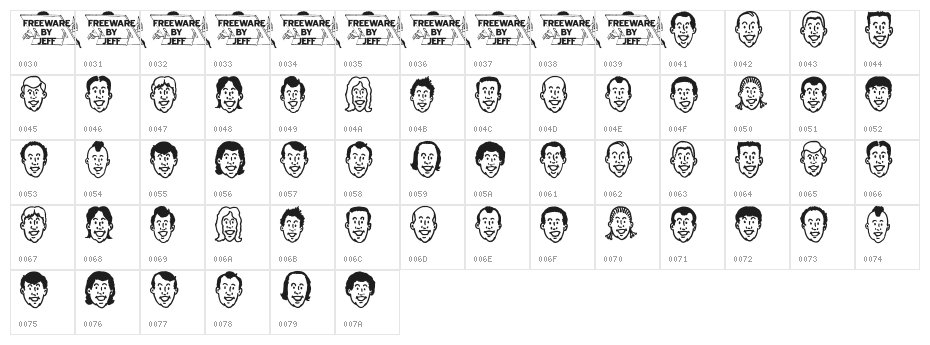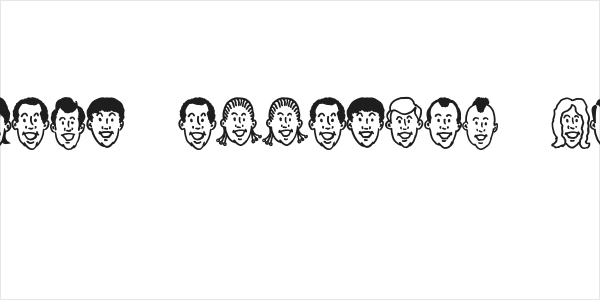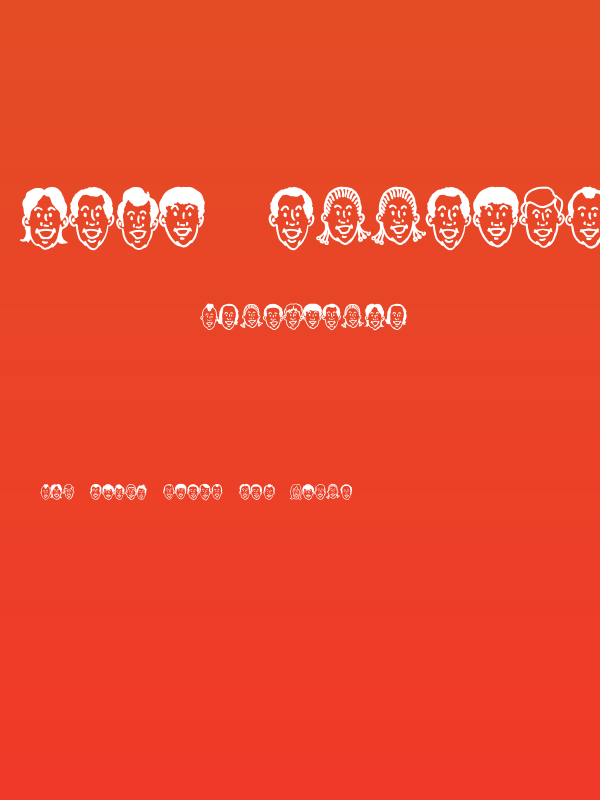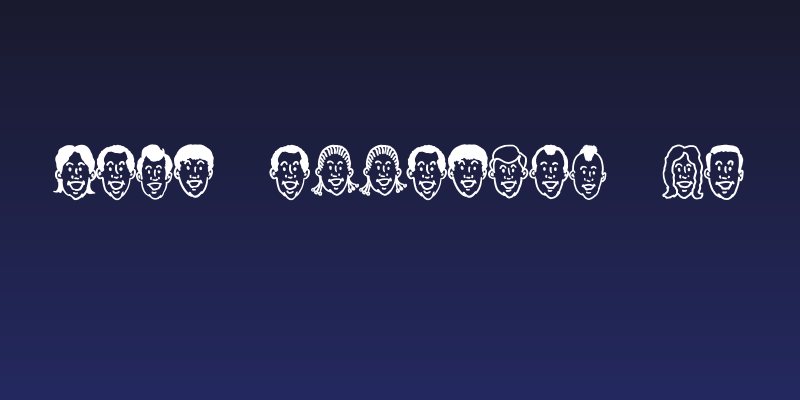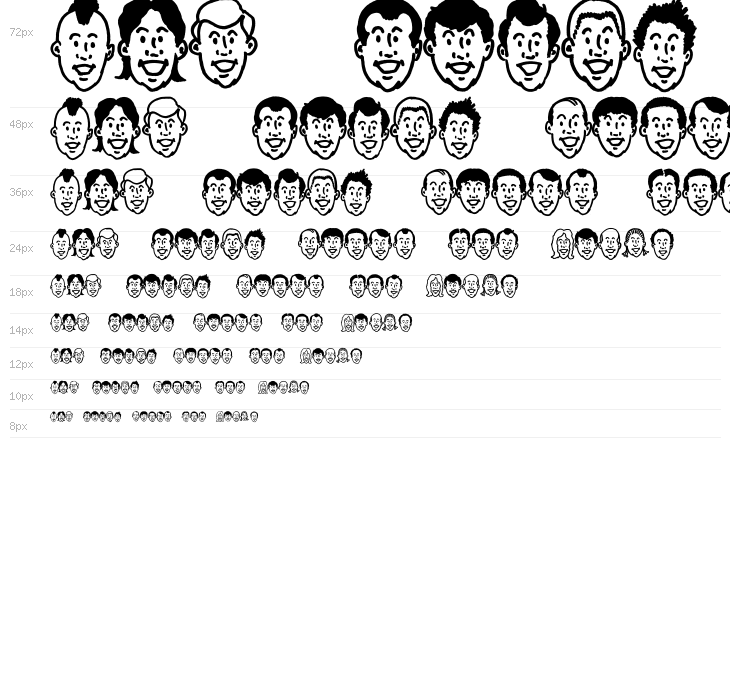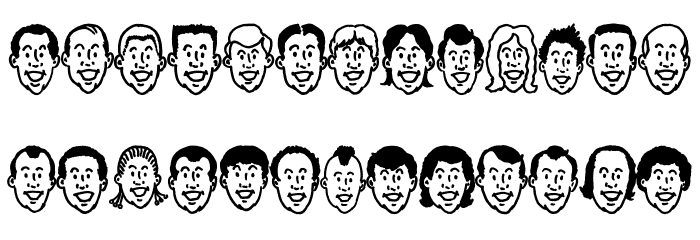
Hair Apparent JL Font
Hair Apparent JL Description
This is a decorative font featuring a series of cartoonish, expressive faces with various hairstyles. Each character is represented by a unique face, showcasing different emotions and hair designs. The style is playful and whimsical, making it suitable for creative and informal projects. The characters are bold and outlined, ensuring they stand out clearly. This font is not designed for traditional text but rather for decorative purposes where each character can be used as an individual graphic element.
Overall StyleWhimsical
Use CaseDecorative elements, Graphic design
Proposed ProjectsIdeal for children's books, playful graphic designs, educational materials, and creative posters.